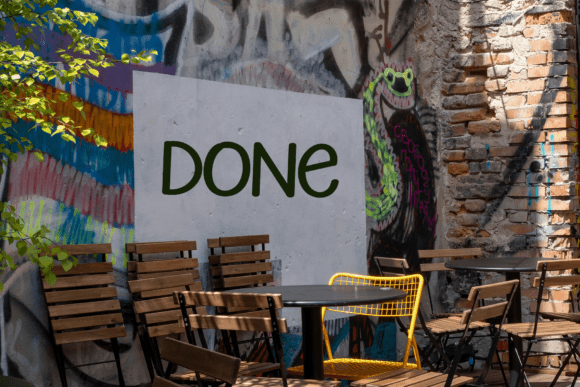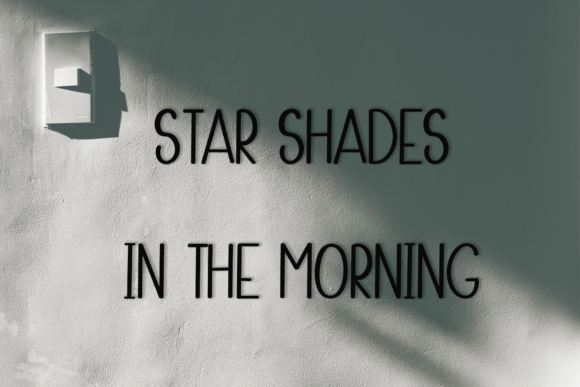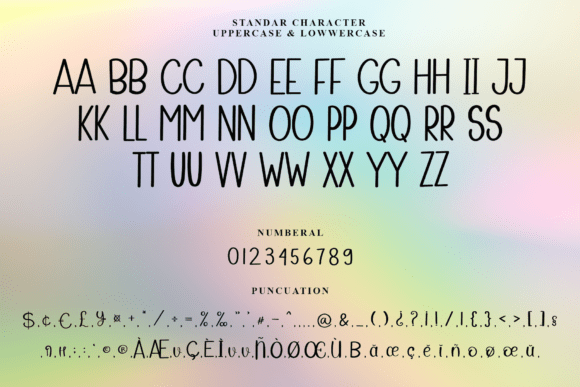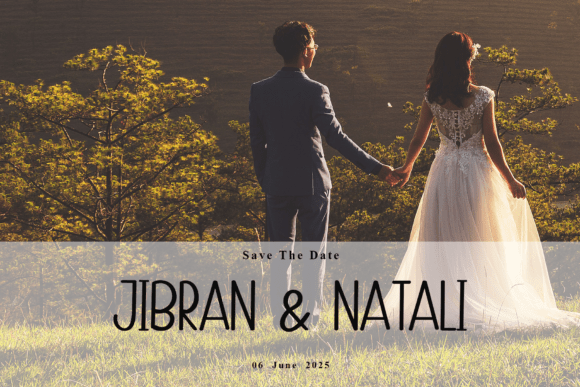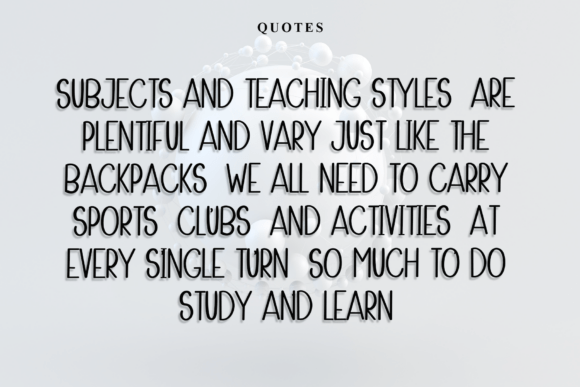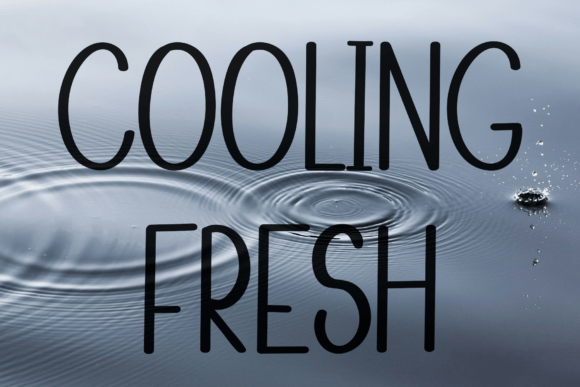
The Elegance of Alphabet Font: A Designer’s New Best Friend
I still remember the design project that led me to discover the Alphabet font. I was working on a luxury brand’s brochure, and my client requested a font that exuded elegance and sophistication. I scoured the internet, tried out countless fonts, but nothing seemed to fit the bill. That was until I stumbled upon Alphabet font. Its trendy, handwritten style with a contemporary twist instantly won me over. In this article, I’ll share my experience with Alphabet font, its features, and how to make the most of it in your design projects.
An Honest Review of Alphabet Font
What I Love About Alphabet Font ✨
• 💫 Elegant and classy: Alphabet font adds a touch of sophistication to any design project.
• ✅ Highly legible: Despite its handwritten style, Alphabet font is surprisingly easy to read.
• 🎨 Versatile: It works well for both digital and print projects, from luxury branding to wedding invitations.
• 🌈 Beautifully crafted: The font’s attention to detail is impressive, with subtle variations in line width and curves.
• ⚠️ Limited use in very small sizes: Alphabet font can become a bit tricky to read when used in very small sizes (less than 10pt).
• ⚠️ Not ideal for body text: While it’s legible, Alphabet font is best used for headings, titles, or short paragraphs.
The Story Behind Alphabet Font
Alphabet font was designed by a team of typographers who aimed to create a modern, elegant font that pays homage to classic calligraphy. Inspired by timeless designs, they crafted a font that’s both trendy and sophisticated. The result is a beautiful, handwritten font that’s perfect for designers, crafters, and creative hobbyists.
What is Alphabet font? Alphabet font is a trendy, handwritten font with a contemporary atmosphere and impeccable form, inspired by timeless classic calligraphy.
Is Alphabet font suitable for body text? While Alphabet font is legible, it’s best used for headings, titles, or short paragraphs. For longer texts, a more traditional font might be more suitable.